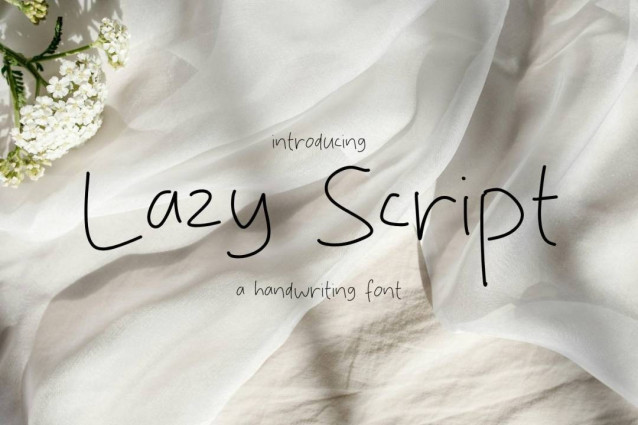
Lazy Script Font
Lazy Script Font is a simple and friendly handwritten font. Its natural and unique style makes it incredibly fitting to a large pool of designs. The only limit is your imagination!